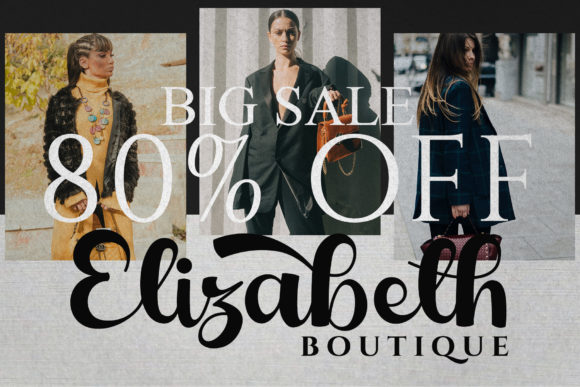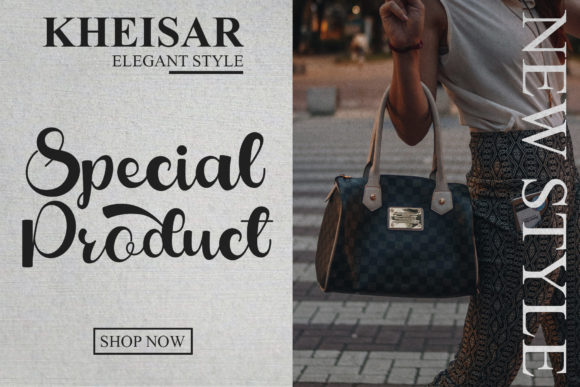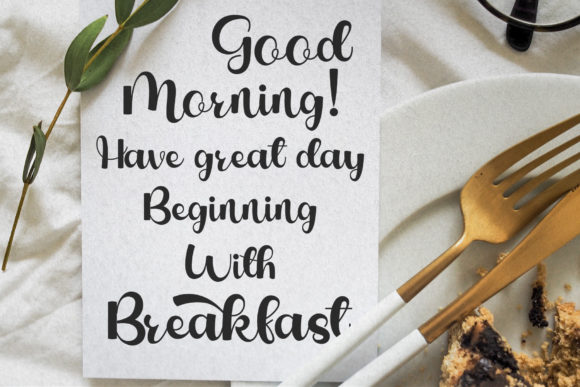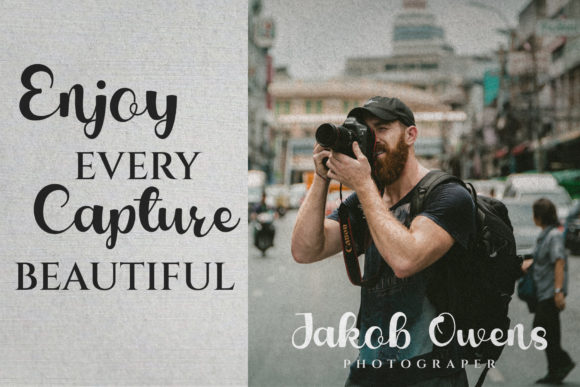
Yolandia Font
About Yolandia Font
Yolandia is a delicate and elegant handwritten font. Its distinct and well balanced letters make this font a masterpiece. Fall in love with its incredibly versatile style and use it to create spectacular designs!